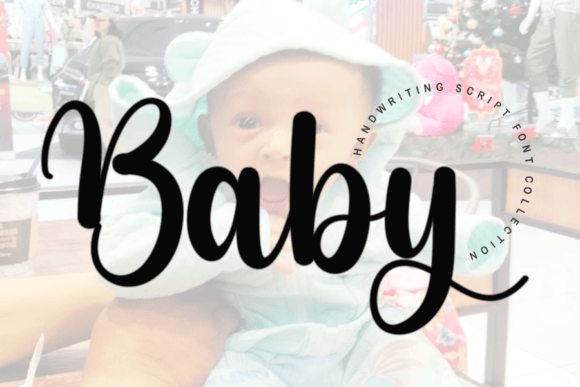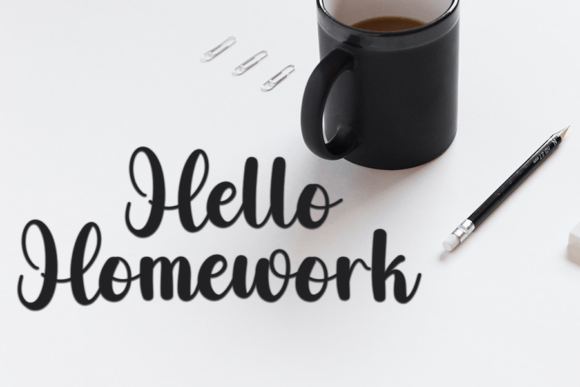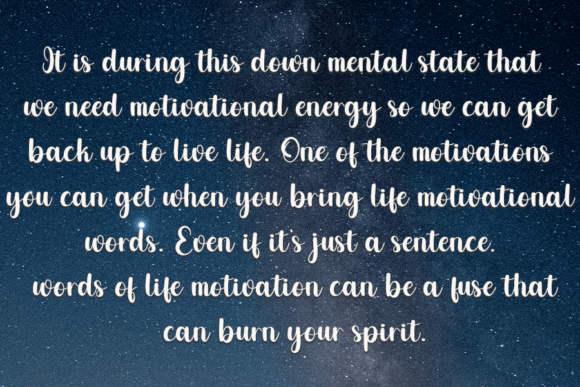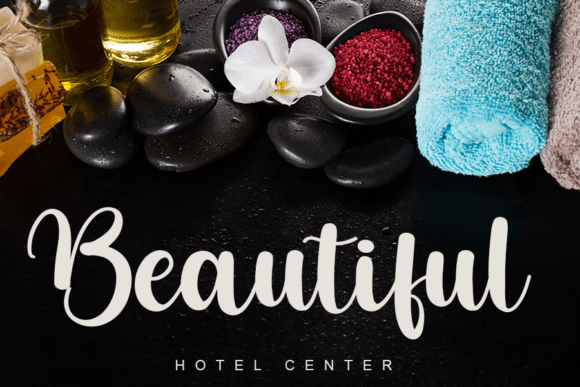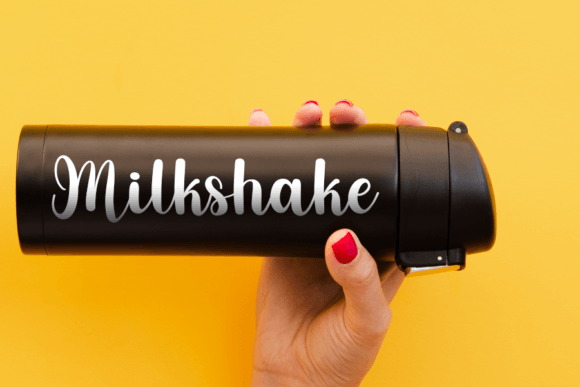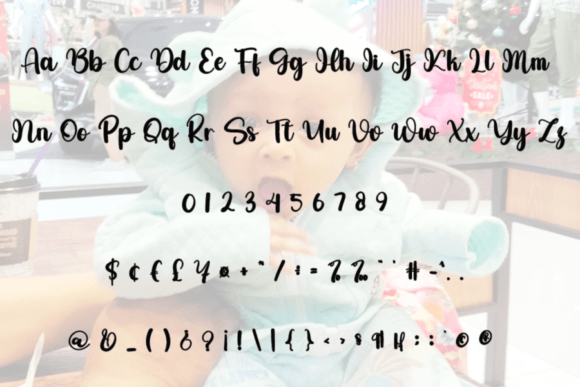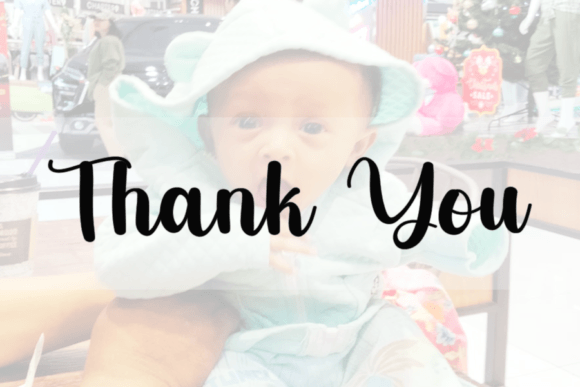
Baby Font
About Baby Font
Baby is a stylish handwritten font that blends the warmth of classic calligraphy with a fresh, modern look. Each character is carefully crafted to balance elegance and clarity, giving your projects a polished feel that never goes out of style. With its smooth lines and graceful flow, Baby adds a touch of charm and sophistication to any design.
A Modern Take on Timeless Calligraphy
Baby is inspired by traditional handwritten scripts but refined with a contemporary twist. The font’s even spacing and varied stroke widths make it feel alive and personal while remaining professional. Whether you use it in print or digital designs, Baby delivers a unique blend of friendliness and elegance.
Its curves are smooth and consistent, making every word feel inviting and easy to read. From delicate lowercase letters to bold uppercase forms, this font strikes the perfect balance between modern simplicity and classic appeal.
Versatile and Beautiful in Every Context
Baby is designed for maximum versatility. Here are some ideas for where it shines best:
• Branding and Logos: Give your brand a soft yet confident personality.
• Wedding Invitations: Create romantic stationery that feels personal and graceful.
• Greeting Cards: Add a touch of heartfelt warmth to special messages.
• Social Media Graphics: Make quotes and announcements stand out.
• Product Packaging: Highlight your products with refined, stylish text.
• Posters and Banners: Use large sizes to make a bold impression.
Wherever you use it, Baby enhances the design without overwhelming it.
PUA Encoded for Easy Access
Baby is fully PUA encoded, which means you can unlock all the extra glyphs, swashes, and ligatures without any special software. This feature lets you customize your typography easily and add special flourishes to names, titles, or taglines.
Why Choose Baby Font?
• Stylish and Modern: Perfect for contemporary design trends.
• Calligraphic Influence: Inspired by timeless script styles.
• Highly Readable: Clear forms even at smaller sizes.
• Elegant Flow: Smooth curves and balanced proportions.
Design Tips for Baby
1. Pair it with Sans-Serif Fonts: For a clean contrast that highlights Baby’s elegance.
2. Use Plenty of White Space: Let the graceful forms breathe.
3. Highlight Key Words: The font’s flowing style draws the eye naturally.
4. Experiment with Colors: Soft pastels and neutrals work beautifully with Baby’s style.
5. Play with Size: Use larger text to show off the calligraphic details.
Elevate Your Designs with Baby
Baby isn’t just a font—it’s a way to bring timeless beauty to your projects. Its balanced letterforms and smooth strokes make every word feel personal and refined. Whether you’re designing for weddings, brands, or social media, Baby will quickly become your go-to script font.